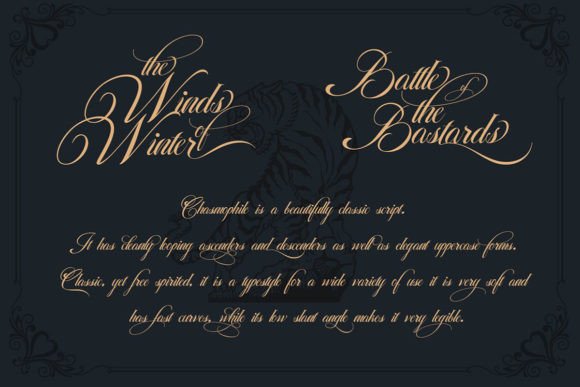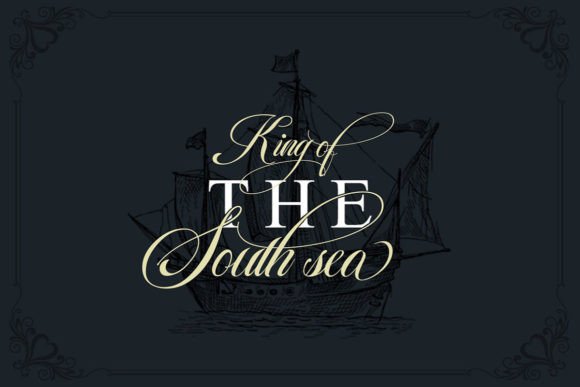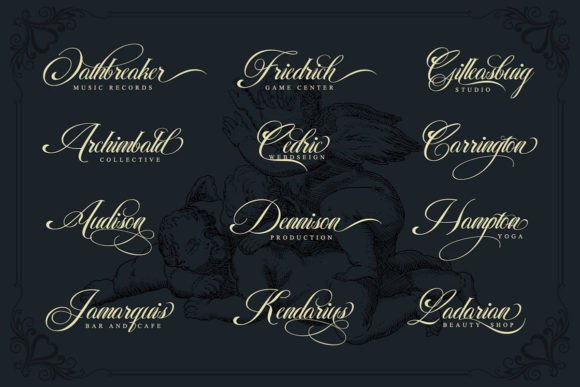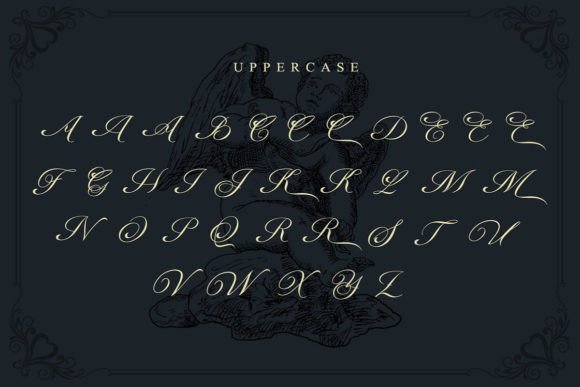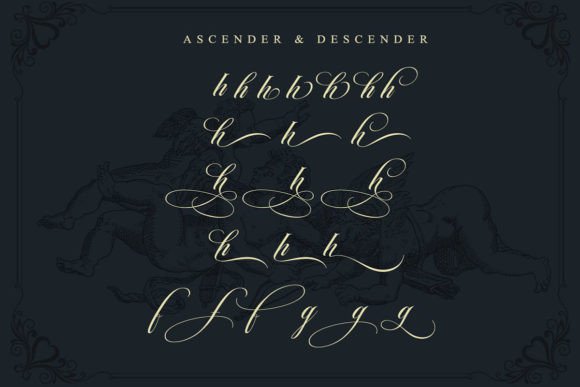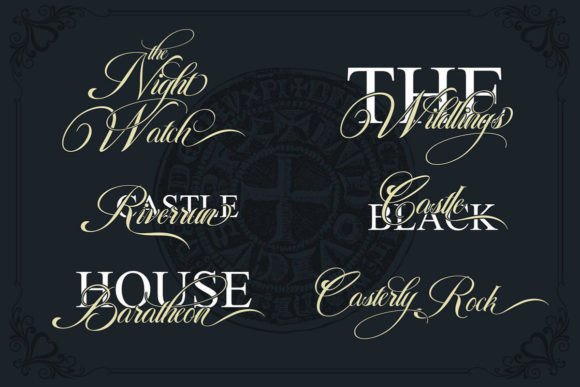
Introducing Chasmophile Font: Elevate Your Designs with a Unique and Stylish Script
In the world of typography, a distinctive font can make all the difference in creating a lasting impression. For designers and crafters looking to add a touch of elegance and individuality to their projects, Chasmophile Font is an exceptional choice. This stylish script font boasts unconventional letter shapes and fluid strokes that exude a sense of sophistication and flair.
What Makes Chasmophile Font Stand Out?
Chasmophile Font is characterized by its flowing lines and perfectly balanced letterforms, which create a harmonious and captivating design. The font’s unique features include:
- Unconventional letter shapes: Chasmophile Font’s letters deviate from traditional typography, making it a standout choice for designers seeking to create distinctive branding materials, invitations, and social media graphics.
- Fluid strokes: The font’s fluid strokes add a touch of elegance and sophistication, giving your designs a polished and refined look.
- Perfectly balanced design: The harmonious balance of the letters creates a visually appealing design that draws the eye and holds attention.
Perfect for Creating Distinctive Branding Materials
Chasmophile Font is an excellent choice for creating branding materials that require a unique and stylish touch. Whether you’re designing a logo, business card, or packaging, this font will help your brand stand out from the competition. Its distinctive features make it perfect for:
- Logos: Create a memorable and stylish logo that reflects your brand’s personality and values.
- Business cards: Add a touch of elegance and sophistication to your business cards, making a lasting impression on potential clients.
- Packaging: Elevate your product packaging with a unique and eye-catching design that sets your brand apart.
Stylish Invitations and Social Media Graphics
Chasmophile Font is also perfect for creating stylish invitations and social media graphics that require a touch of elegance and sophistication. Use it to:
- Create stunning invitations: Design beautiful wedding invitations, party invites, or event announcements that leave a lasting impression on your guests.
- Elevate your social media graphics: Add a touch of style and sophistication to your social media graphics, making your brand stand out in a crowded online space.
Why Choose Chasmophile Font?
With Chasmophile Font, you can:
- Add a unique touch to your designs: Stand out from the crowd with a font that offers a distinctive and stylish vibe.
- Enhance your brand’s personality: Reflect your brand’s values and personality with a font that exudes elegance and sophistication.
- Save time and effort: With a high-quality font, you can create stunning designs quickly and efficiently, without compromising on quality.
Chasmophile Font is an exceptional choice for designers and crafters seeking to add a touch of elegance and individuality to their projects. With its distinctive features, perfectly balanced design, and stylish vibe, this font is perfect for creating branding materials, invitations, and social media graphics that leave a lasting impression. Upgrade your designs with Chasmophile Font and discover a world of creative possibilities.